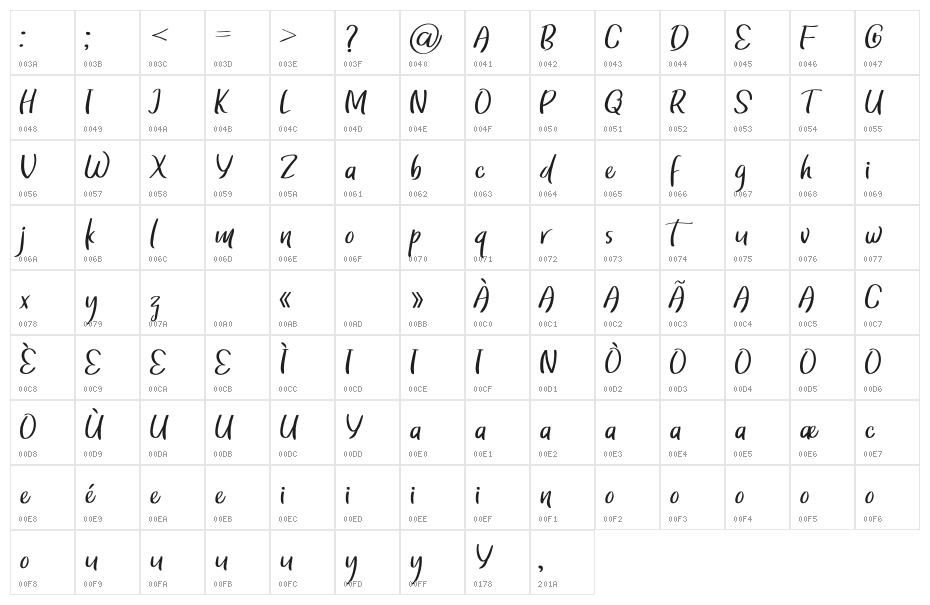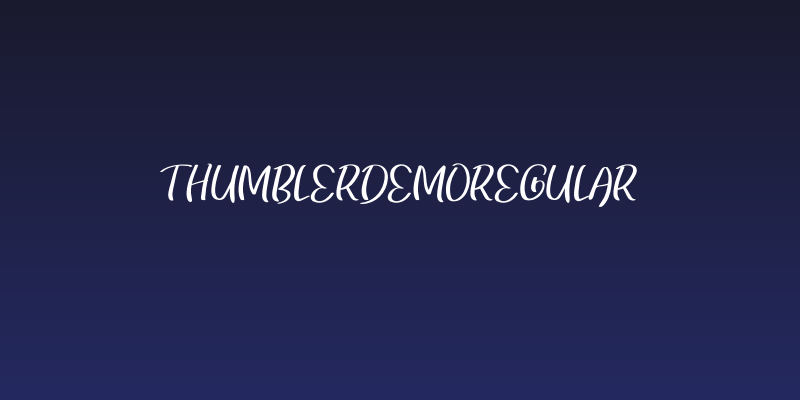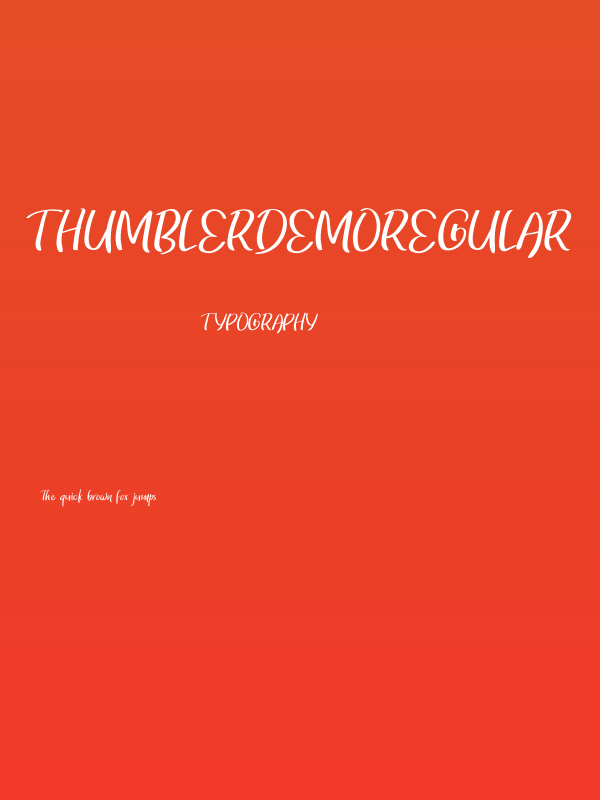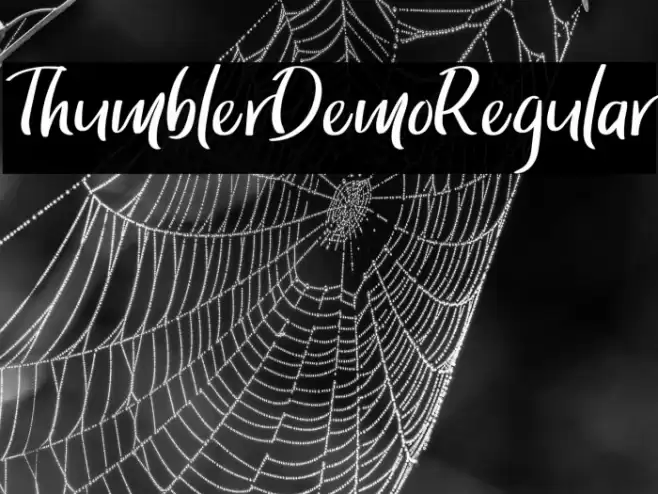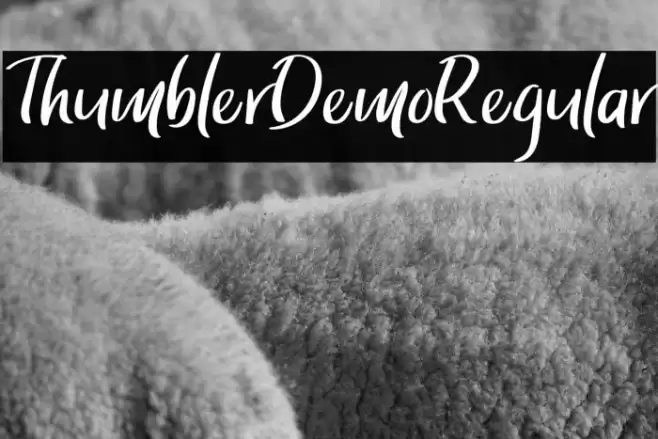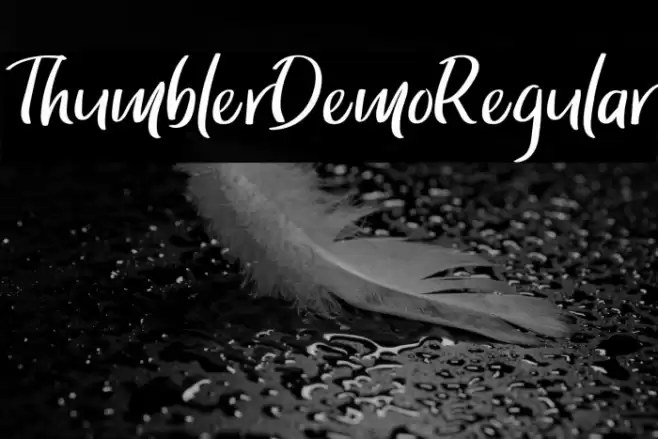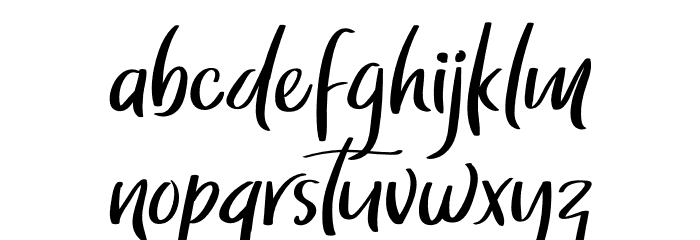
ThumblerDemoRegular Font
✎ Script
ThumblerDemoRegular Description
This font features a dynamic and flowing script style, characterized by its elegant and smooth curves. The uppercase letters exhibit a graceful flair, with strokes that vary in thickness, adding a sense of movement and sophistication. The lowercase letters maintain a cohesive look, with a slightly more compact design that complements the uppercase. The overall appearance is both artistic and readable, making it suitable for creative projects. The font's design is modern yet timeless, offering versatility for various applications.
| Use Case | Logos, Invitations, Artistic projects |
| Proposed Projects | Ideal for wedding invitations, branding, logos, and artistic projects that require a touch of elegance. |